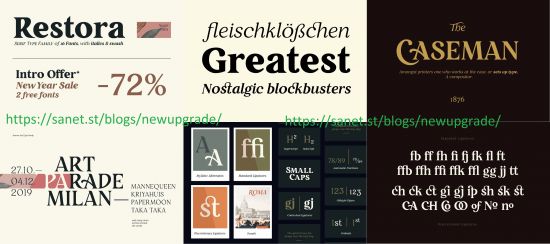
Restora is a mix of old-style roman serif styles. The combination of beautiful letterforms and old style serif makes Restora a versatile type family that can be used in many different themes of design projects.